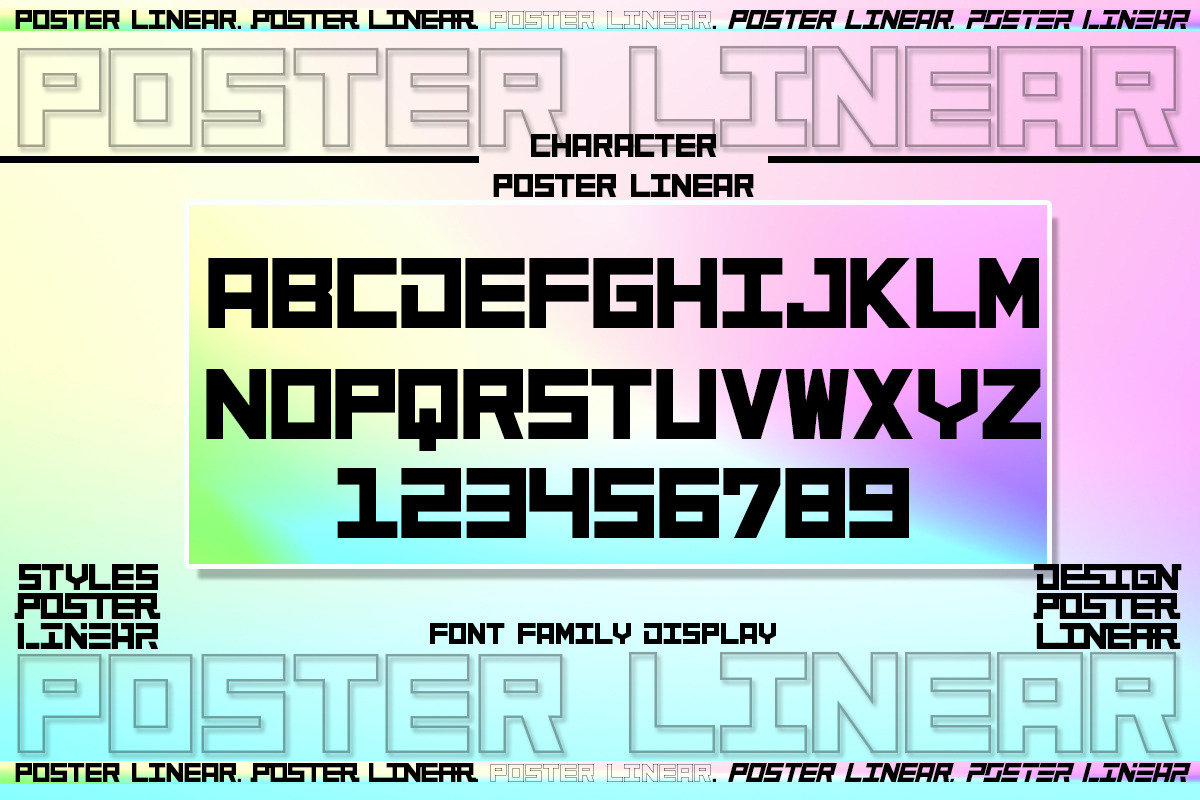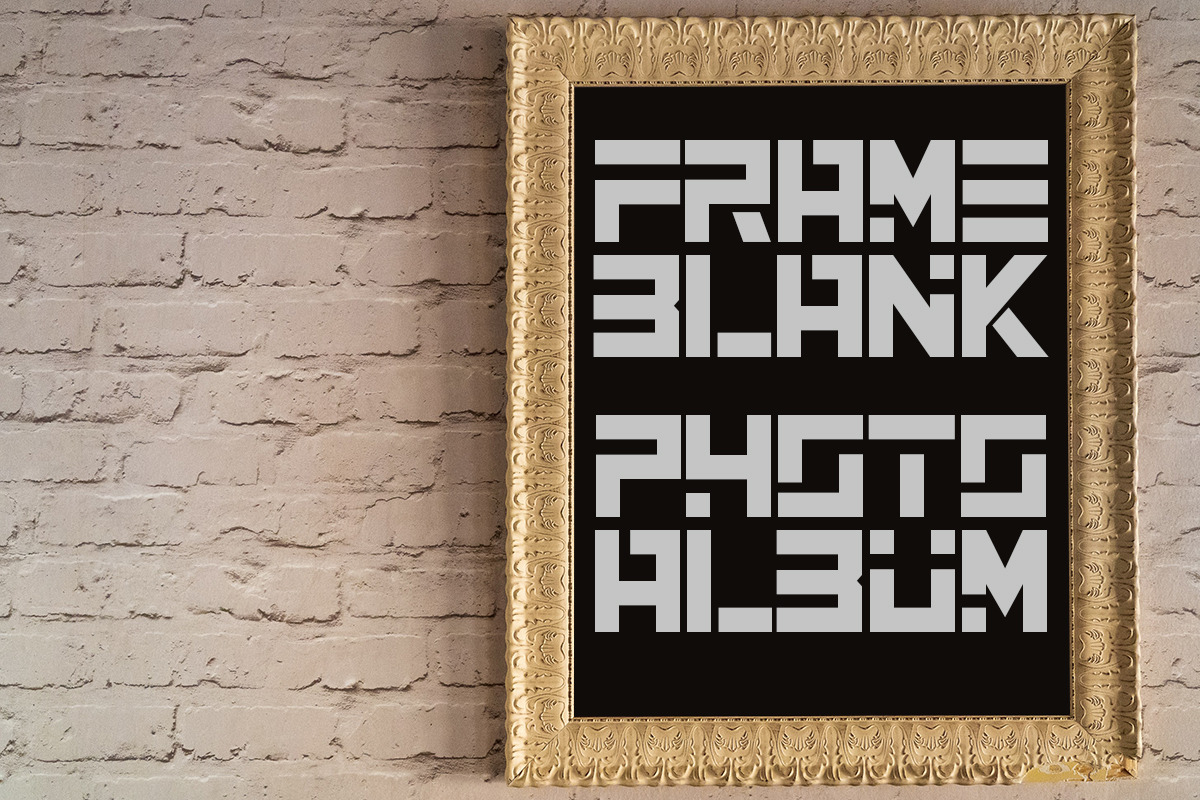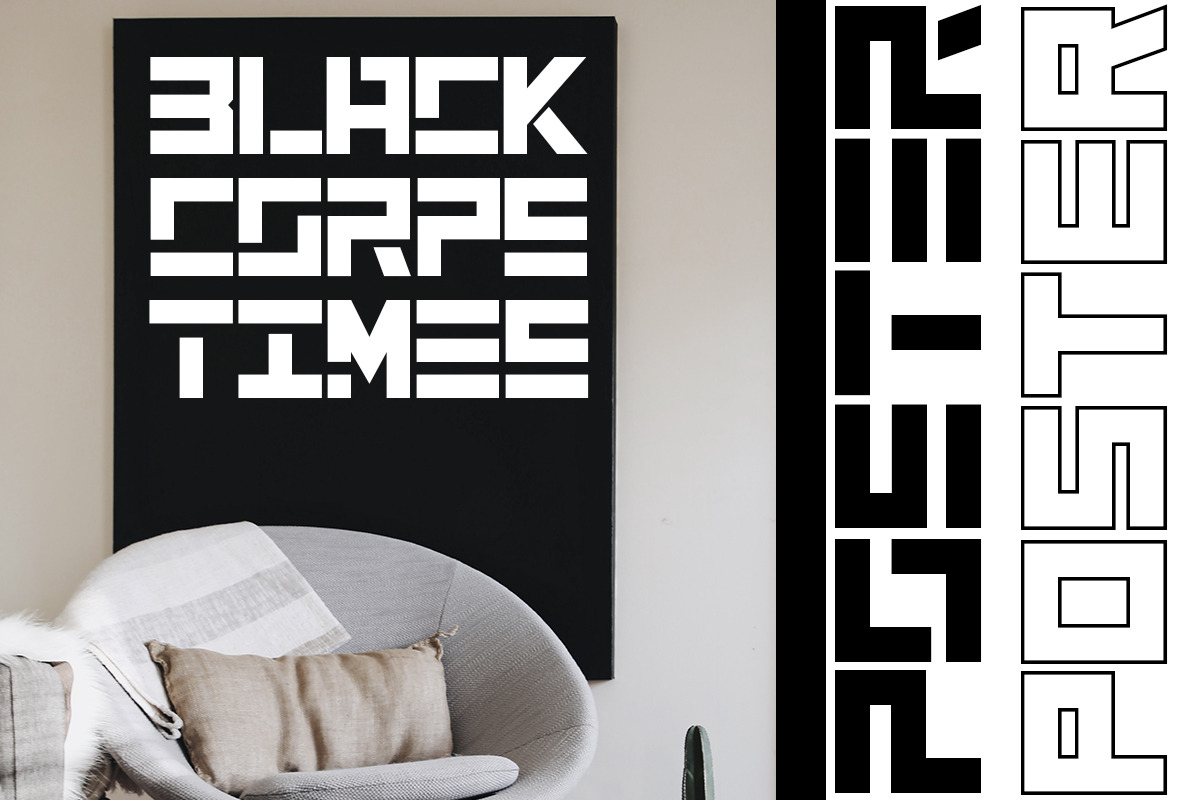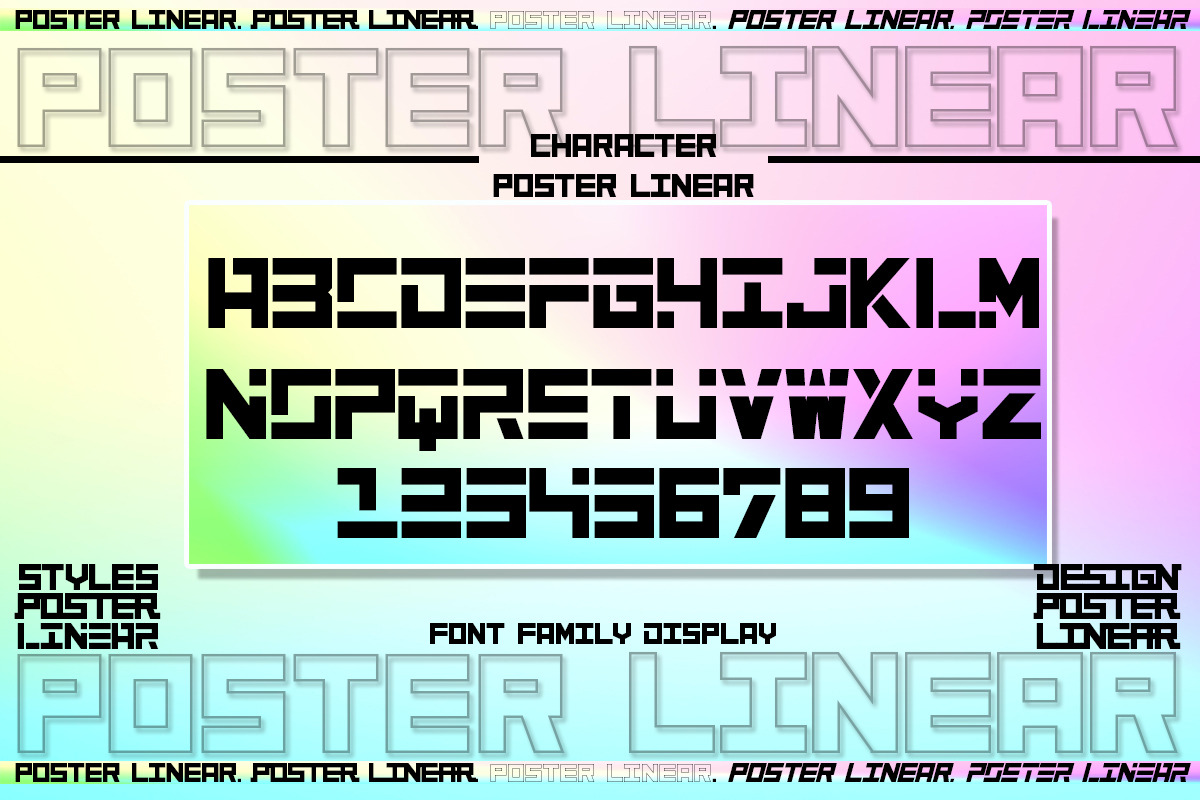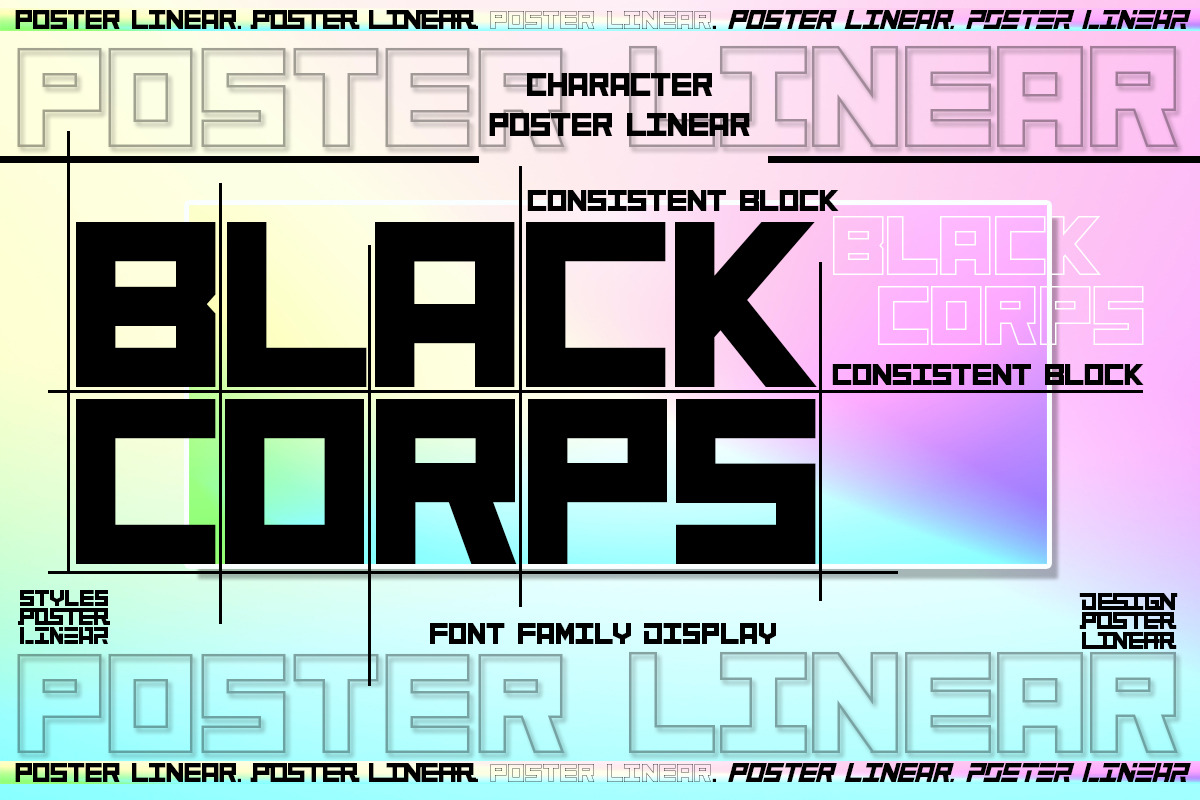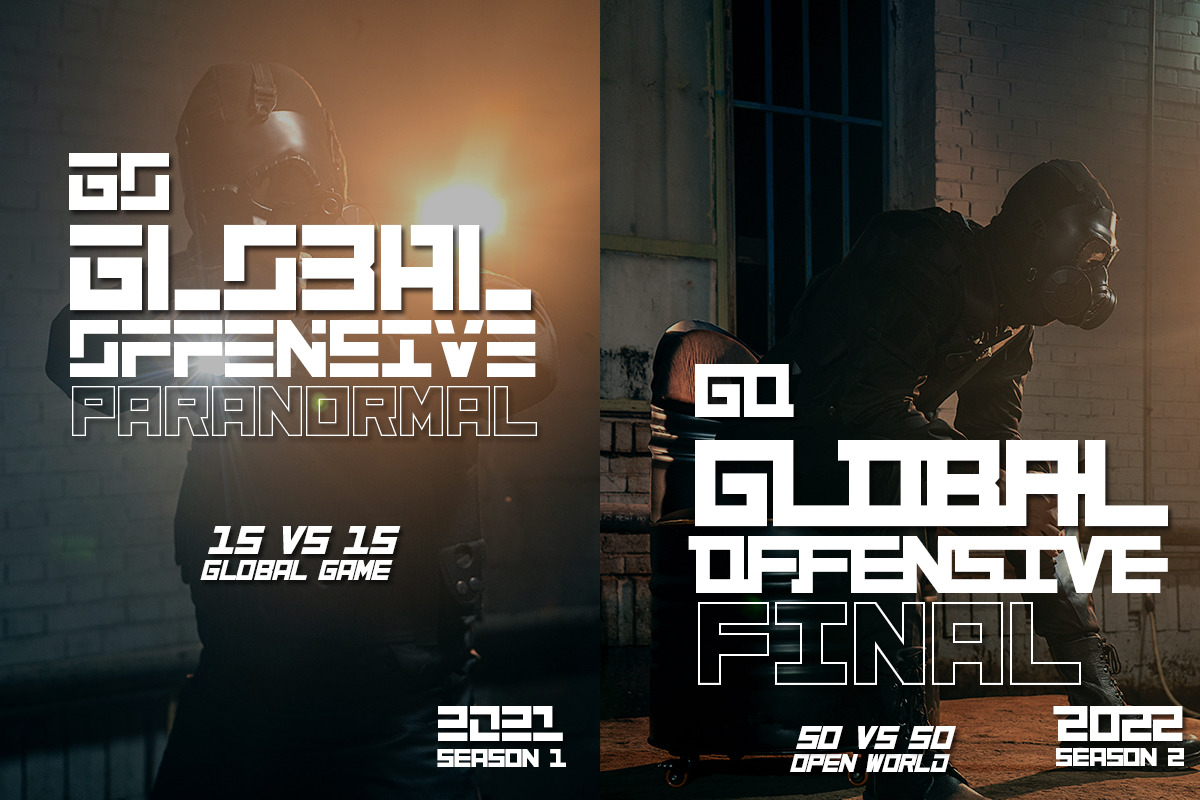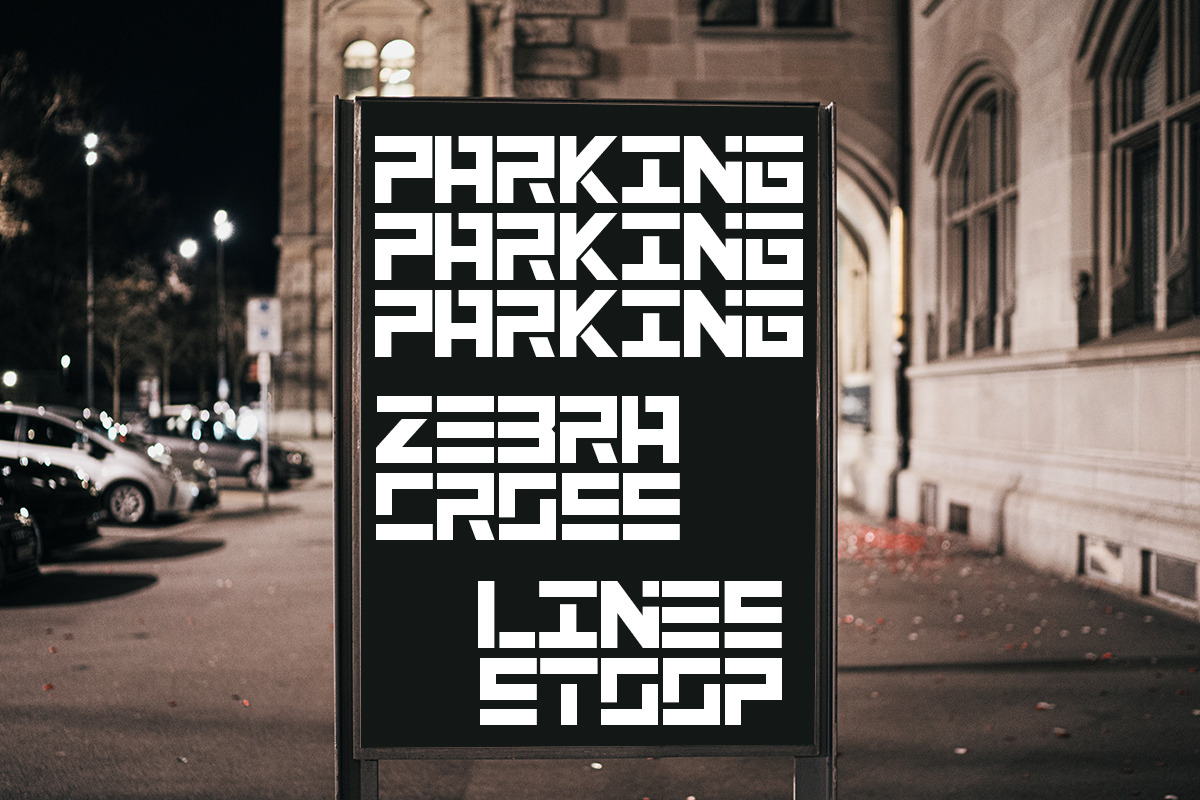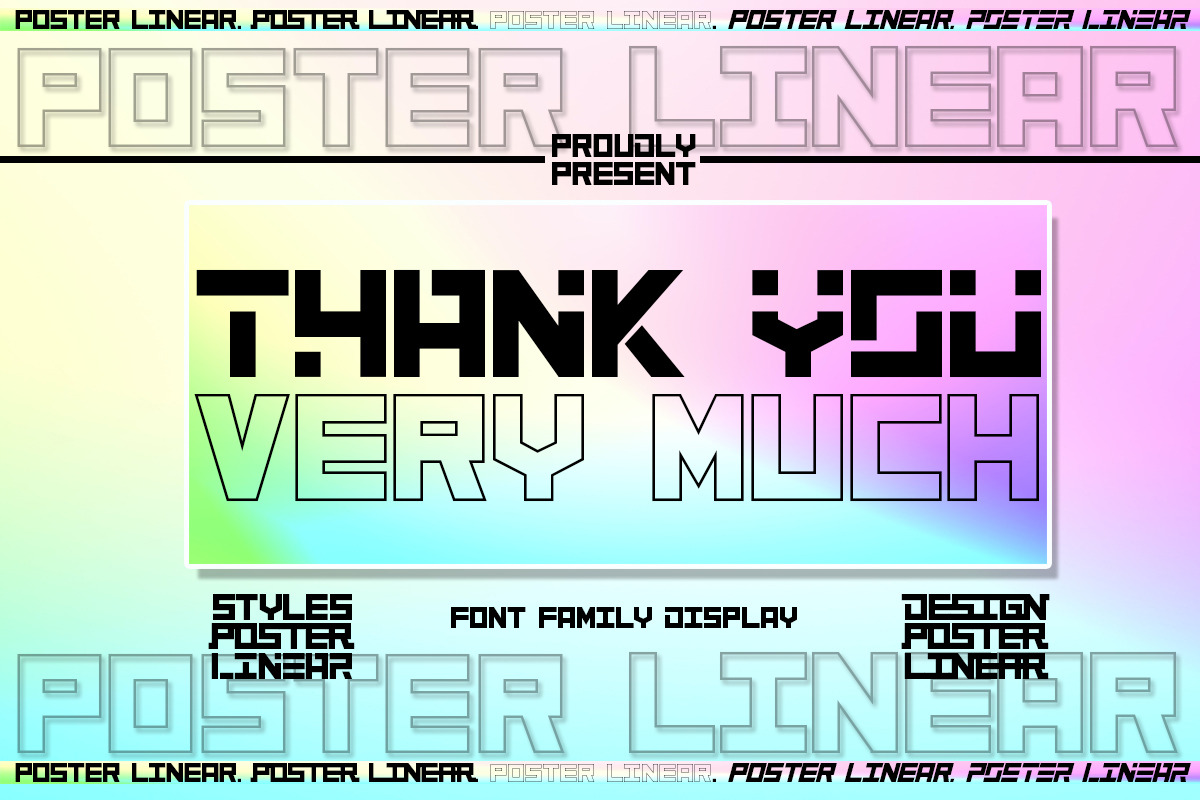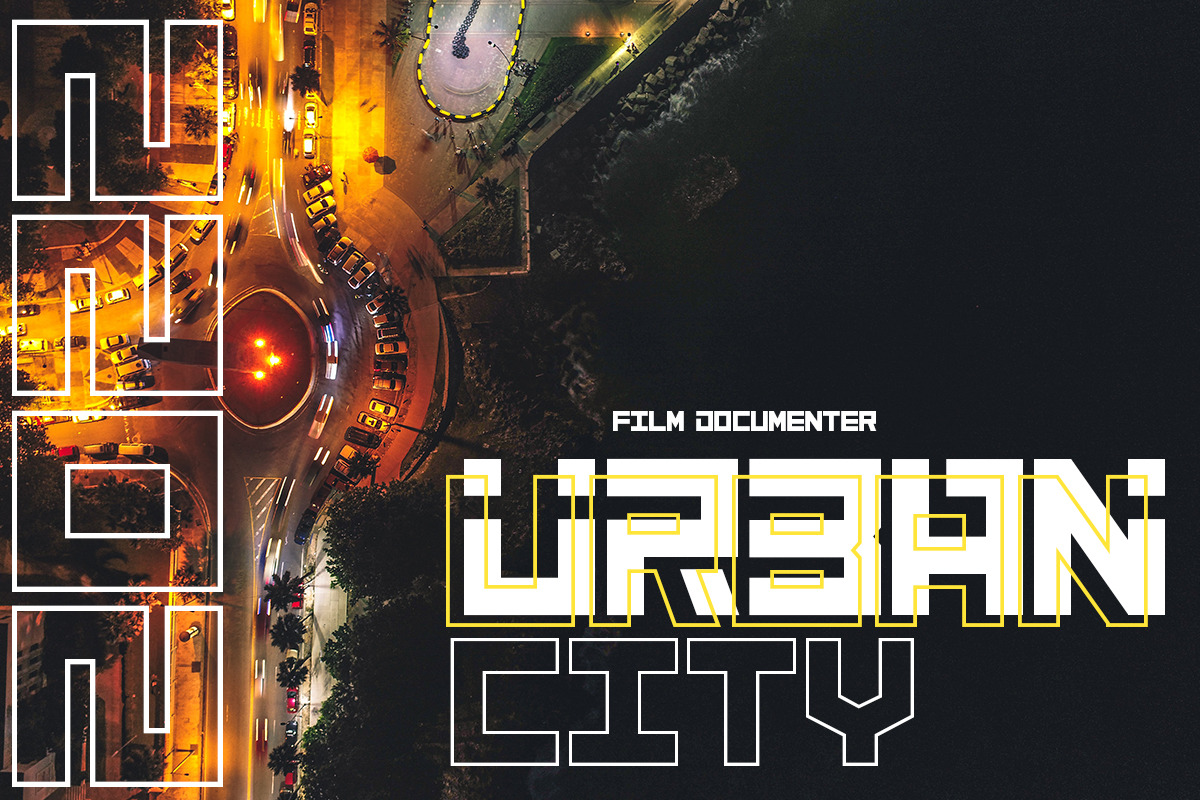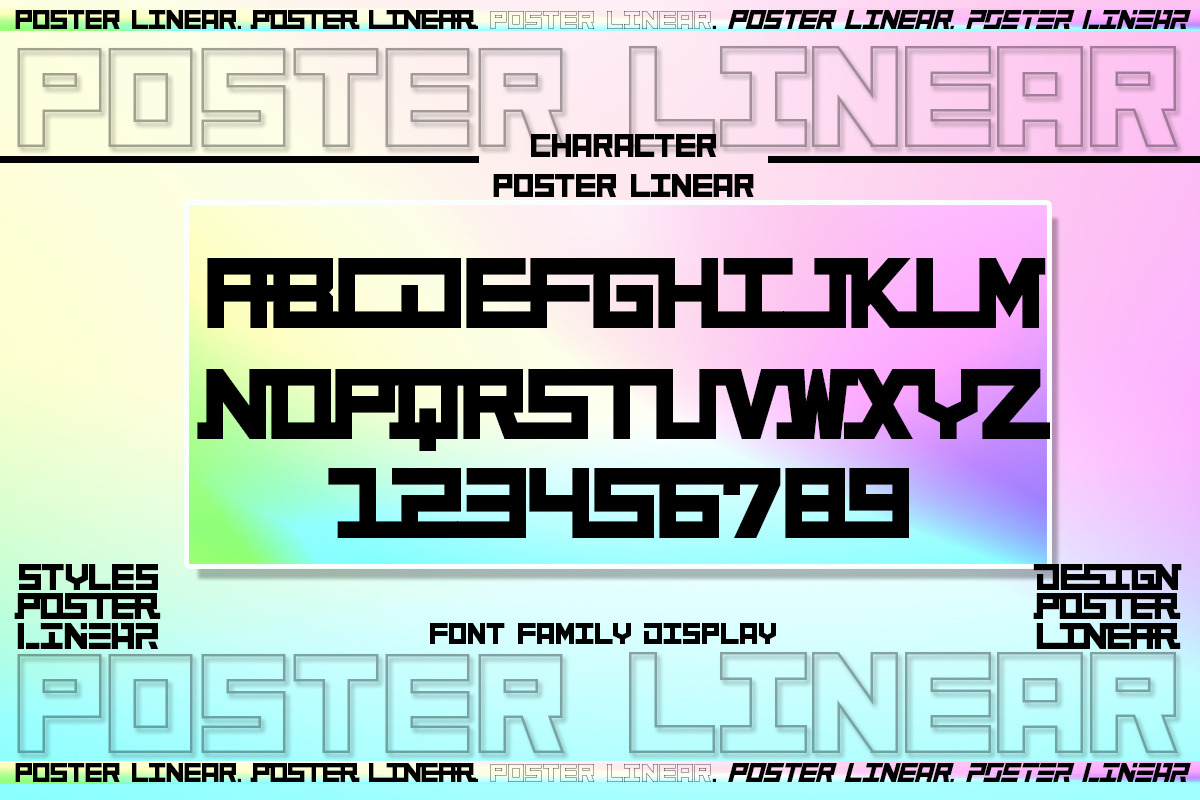
Poster Linear
Poster Linear The natural sans serif font is simple but looks very futuristic and very stylish, adding to your confidence to make your designs look bolder and more modern. perfect for stickers, media posts, social media statuses, magazines, books, covers, game covers, banners, wall magazines, sports shades and more